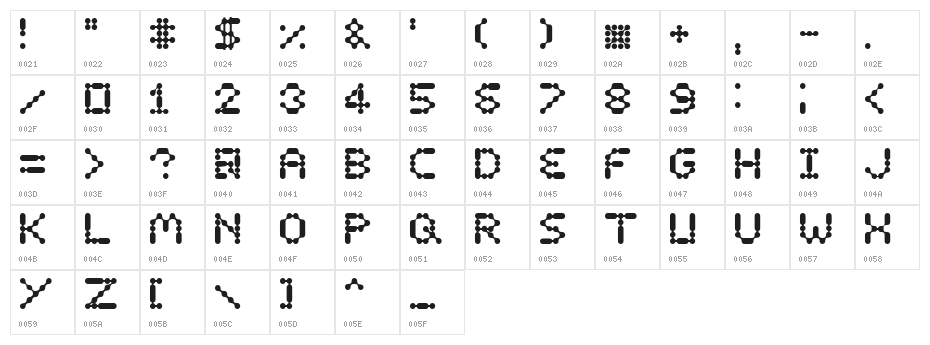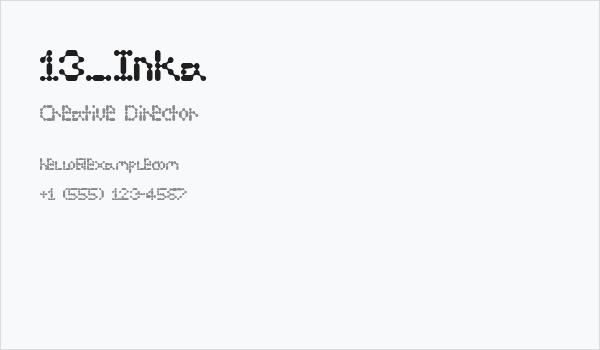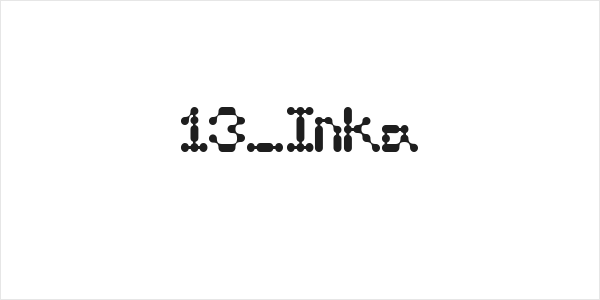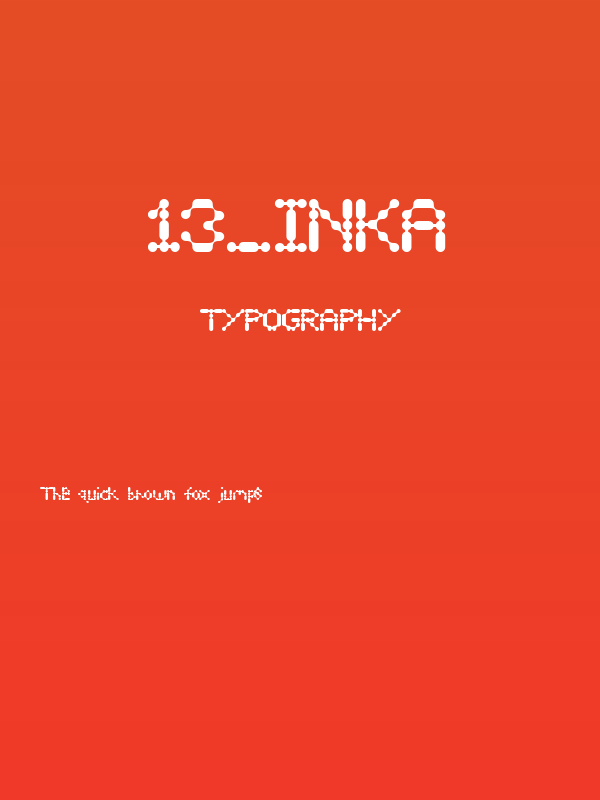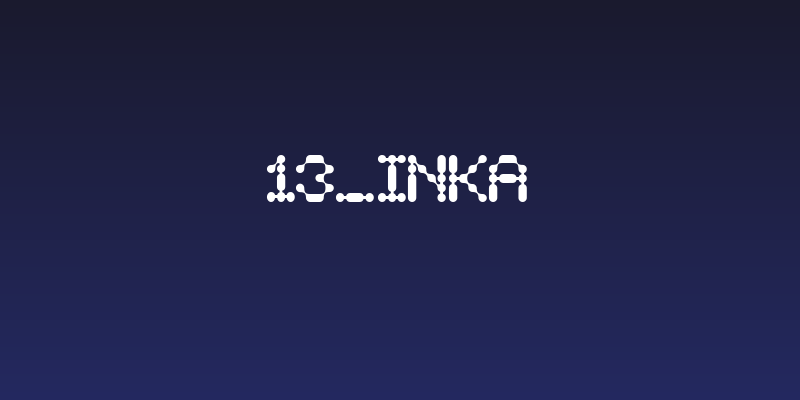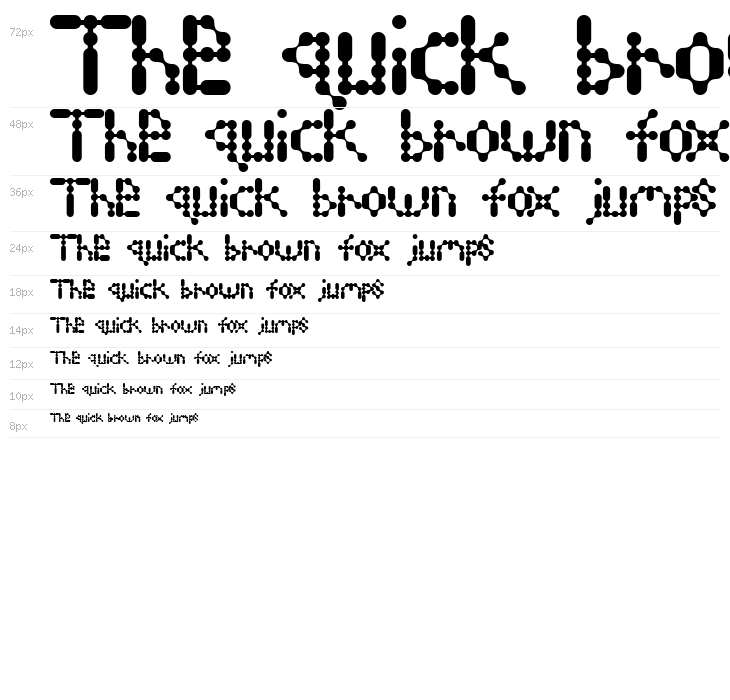
13_Inka Font
13_Inka Description
This font features a unique, decorative style composed of circular and linear elements that create a dotted, interconnected appearance. Each character is formed by a series of dots connected by short lines, giving it a playful and modern look. The uppercase and lowercase letters maintain a consistent design, with the dots creating a uniform pattern across the alphabet. Numbers and special characters follow the same design principle, ensuring a cohesive visual style. This font's distinct design makes it suitable for creative projects that require a bold and eye-catching typeface.
| Proposed Projects | Ideal for creative projects such as posters, logos, and digital artwork where a bold, unique typeface is desired. |